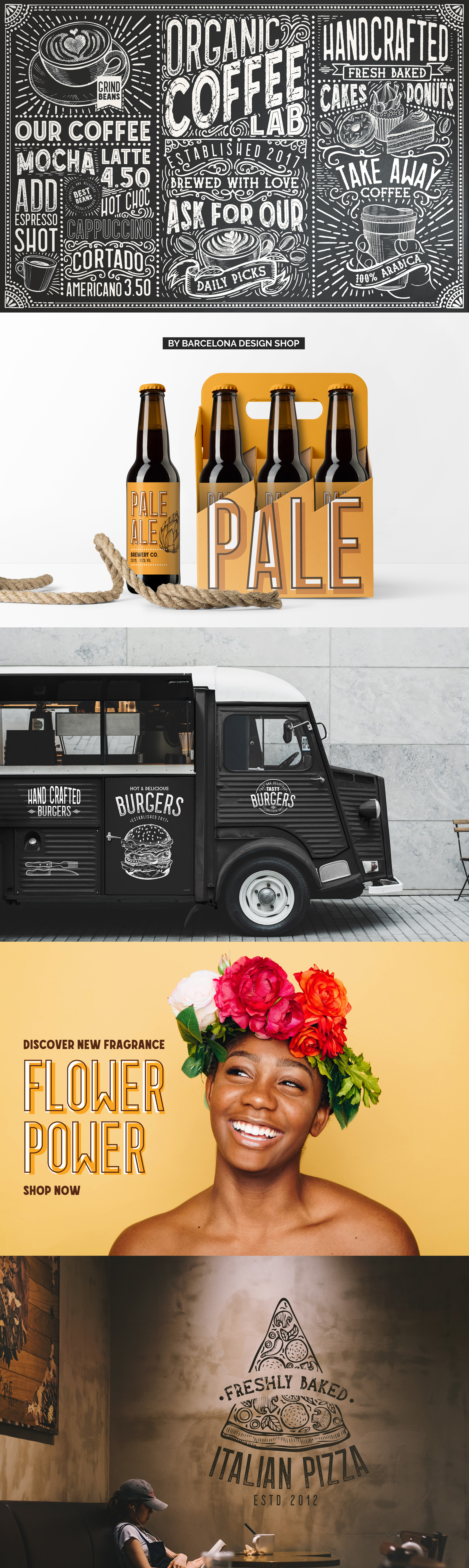
15 Fonts Coffee Lab Collection
Coffee Lab Font Collection - 15 Styles
Coffee Lab - a font collection of vintage, rough, rounded, outline, inline styles. Includes uppercase letters, punctuation, numbers, special characters, multilingual support.